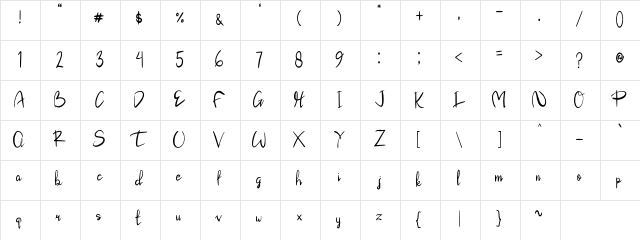
Syawalan Syawal
Design Context for Syawalan Typeface
Syawalan is a composed and adaptable typeface that performs quietly and consistently across a wide range of design contexts.